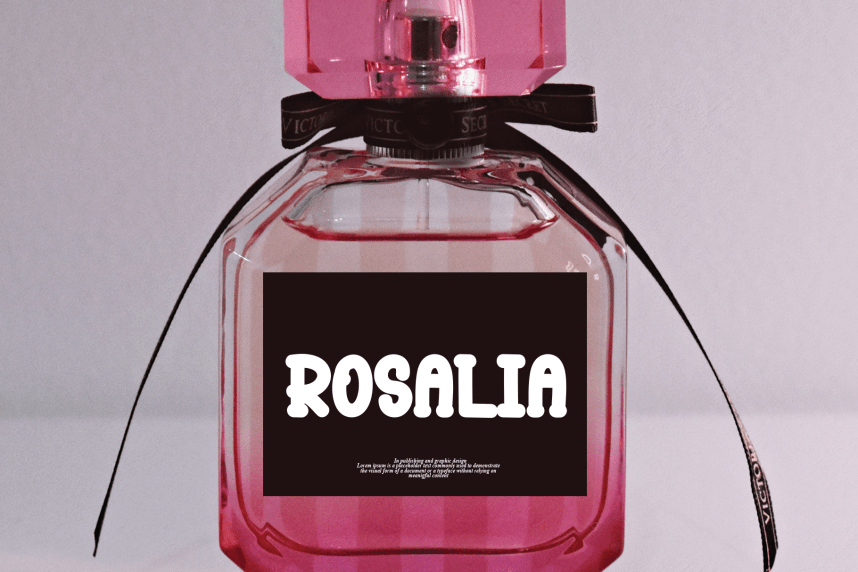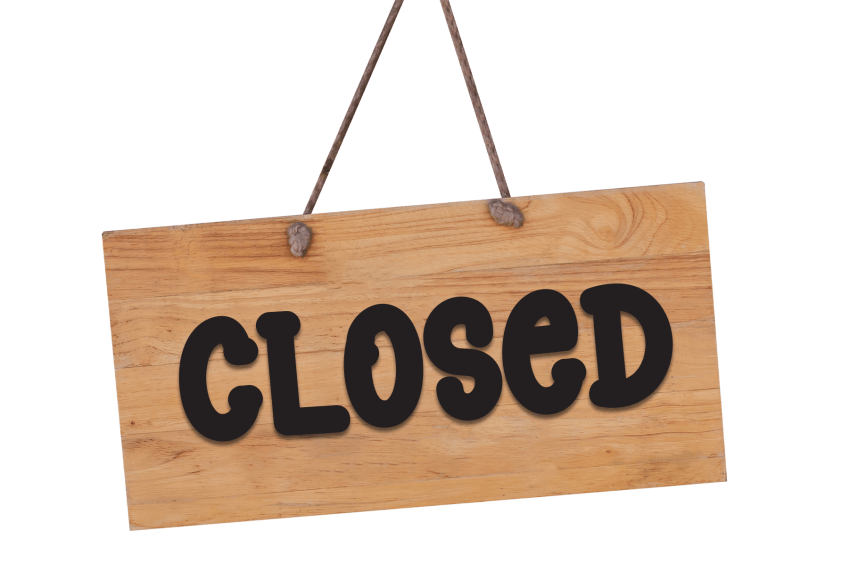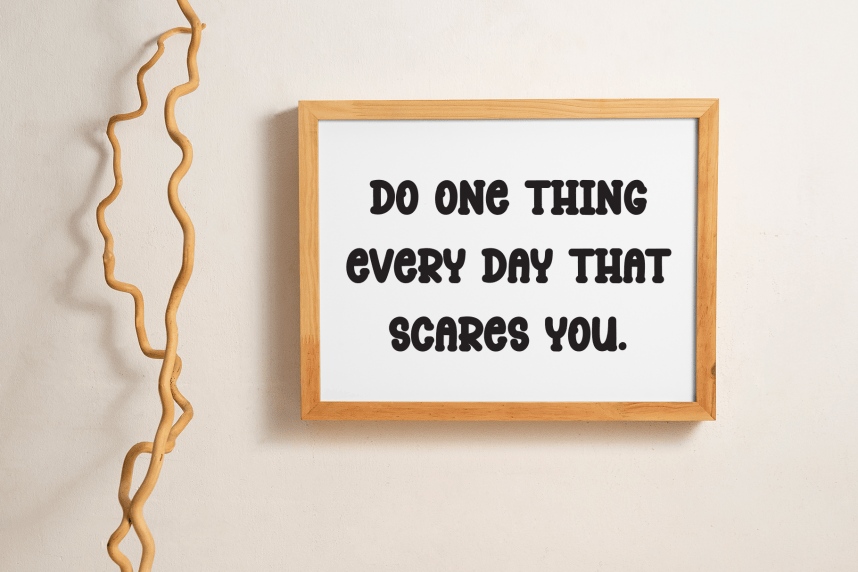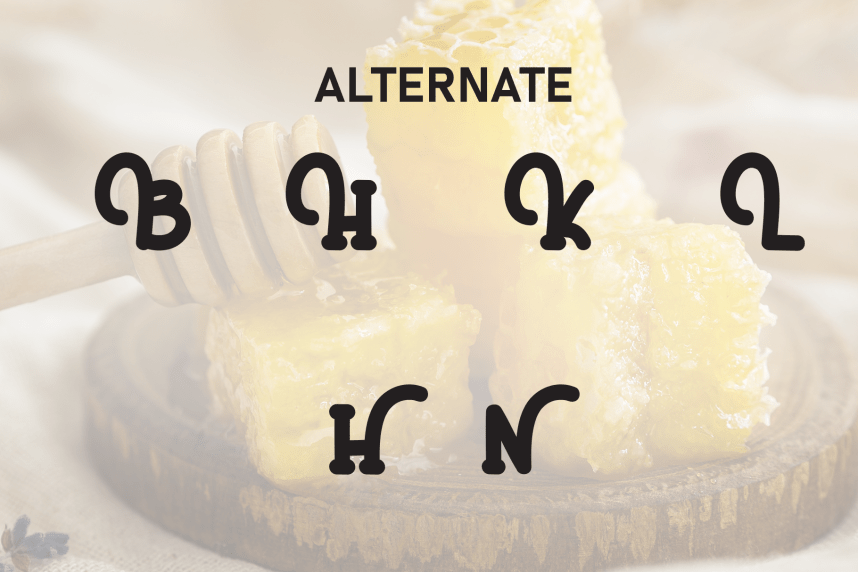
Honey – Creative And Unique Font
Honey – Creative And Unique Font is a sweet and friendly handwritten display font. Cute and fun, this font is ideal for writing wedding invitations, cards, or any other design that might need a playful touch!